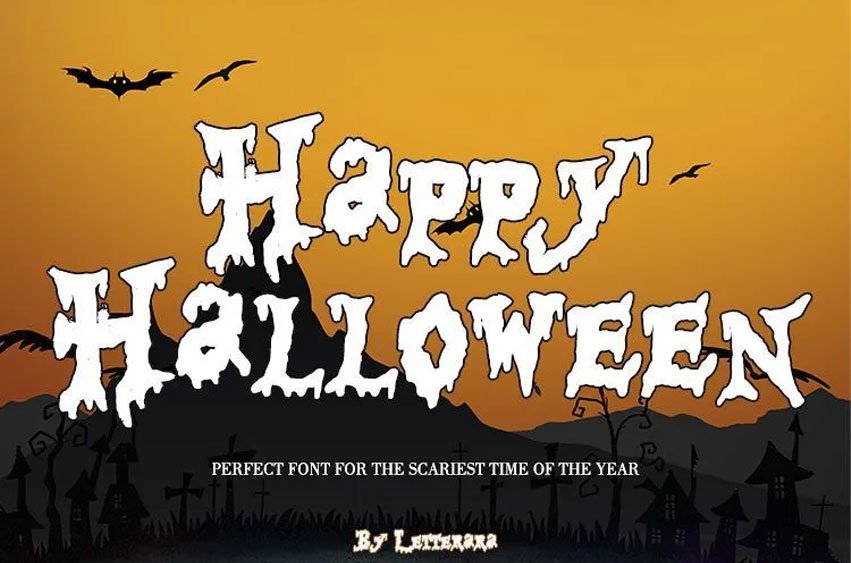
Happy Halloween Font
Happy Halloween Font is the ideal font for the most horrifying period of the year.
And if you go inside the font, you will not only see the beautiful letters to make Halloween decorations.